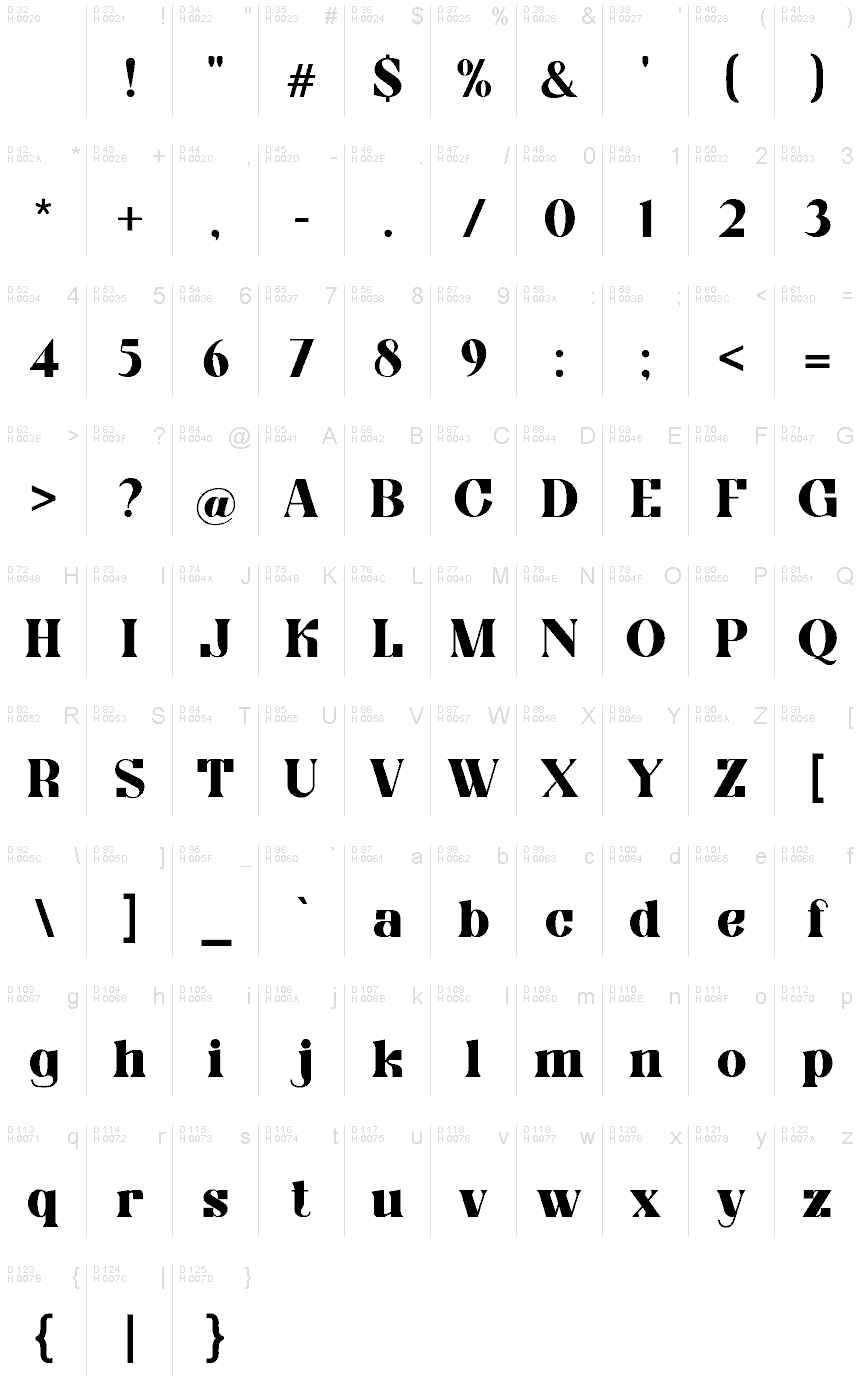
Obligately Regular
Obligately font by UI Creative is a bold serif font that superbly mixes elegance with a vintage-inspired design. Designed with a classy charm, this sophisticated and formal typeface possesses an artistic touch, making it ideal for instantly elevating your work while easily grabbing attention. It also impeccably combines feminine features with eye-catching ornaments to ensure truly graceful yet highly legible presentations.
The free serif font finds numerous applications in branding projects, advertisement campaigns, logos creation, packaging designs, magazines covers and layouts, invitations of various types (weddings and parties), book covers, posters designing or even newsletters. It will furthermore look exquisite on signs or website headlines.